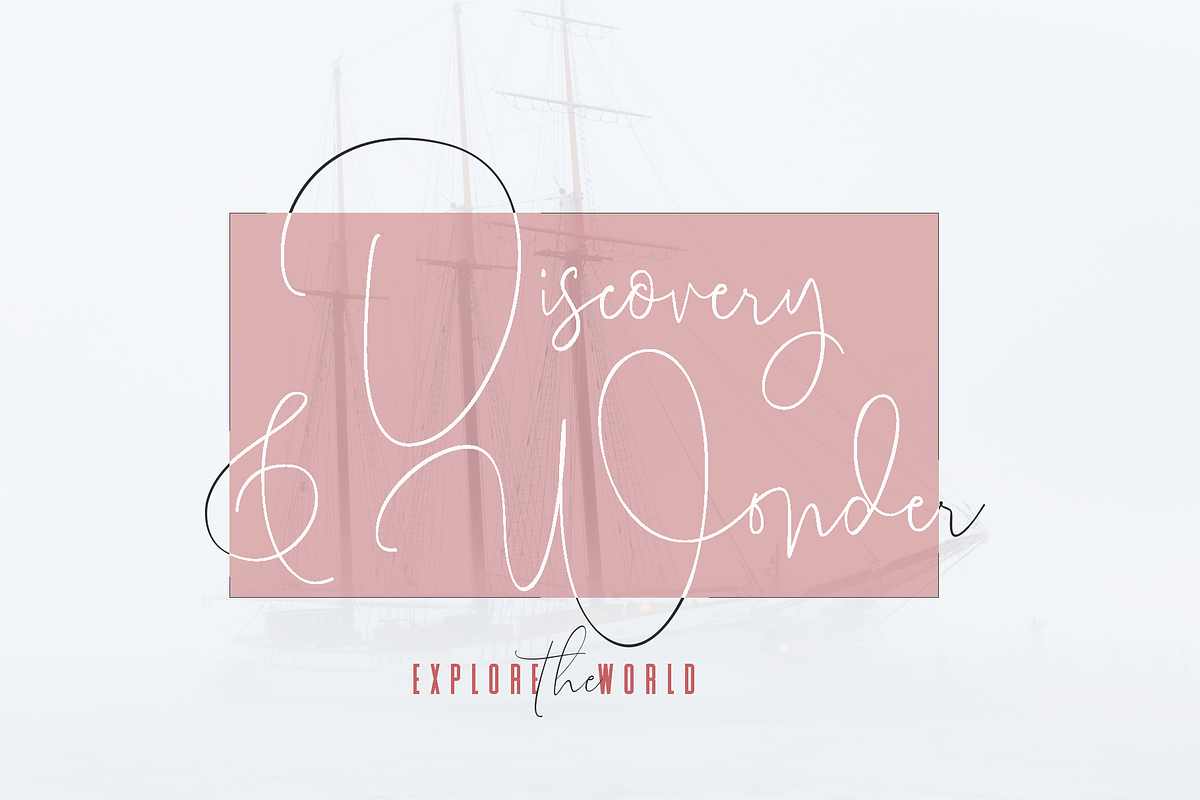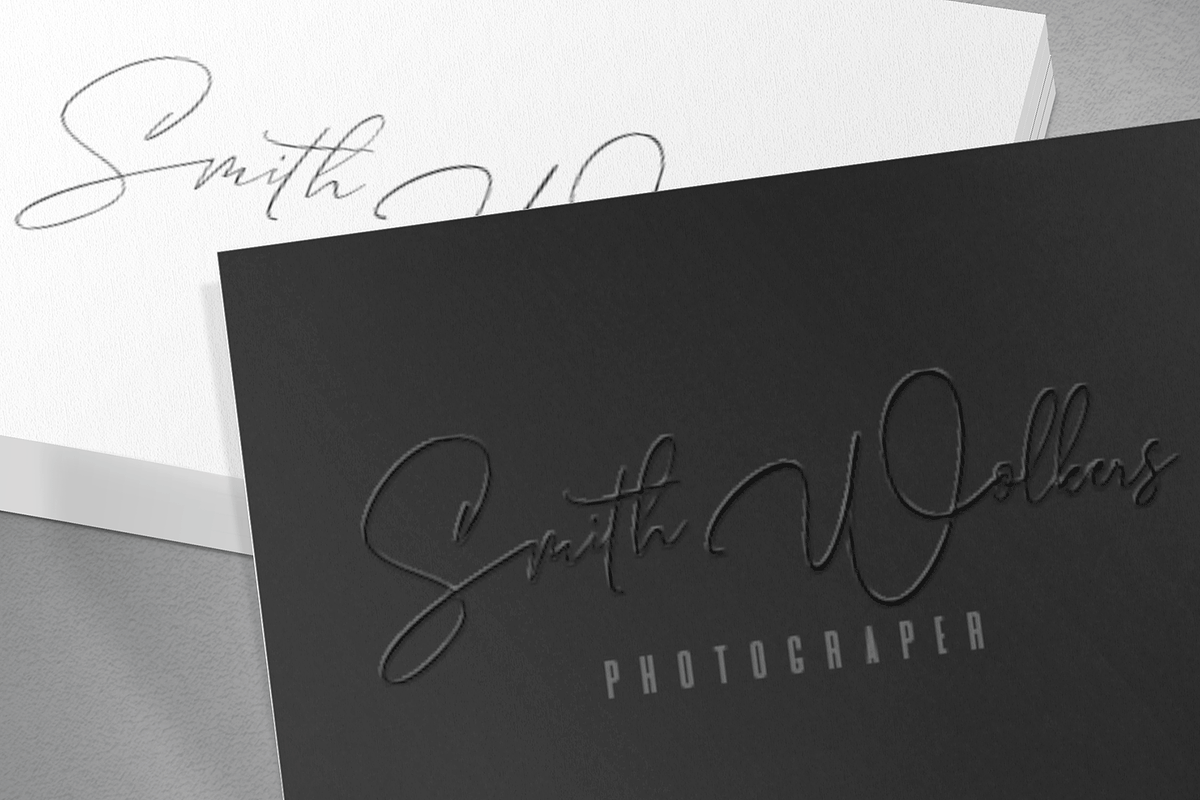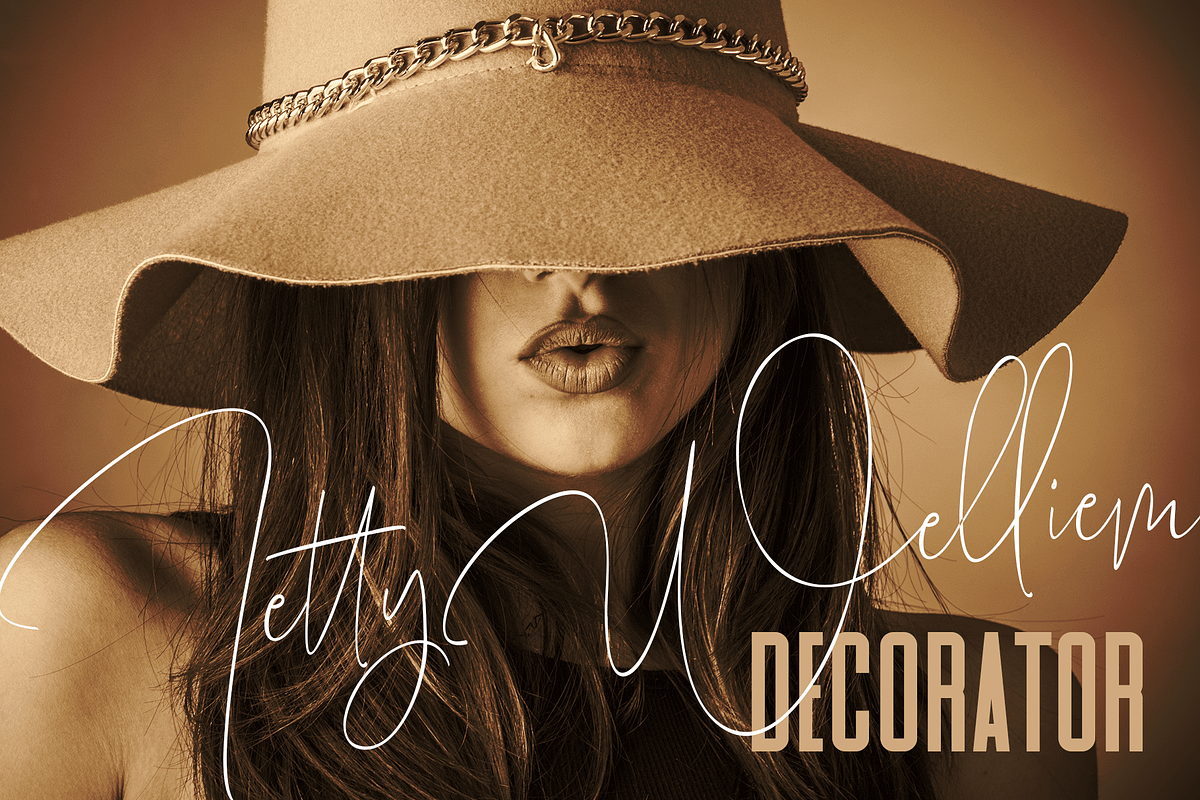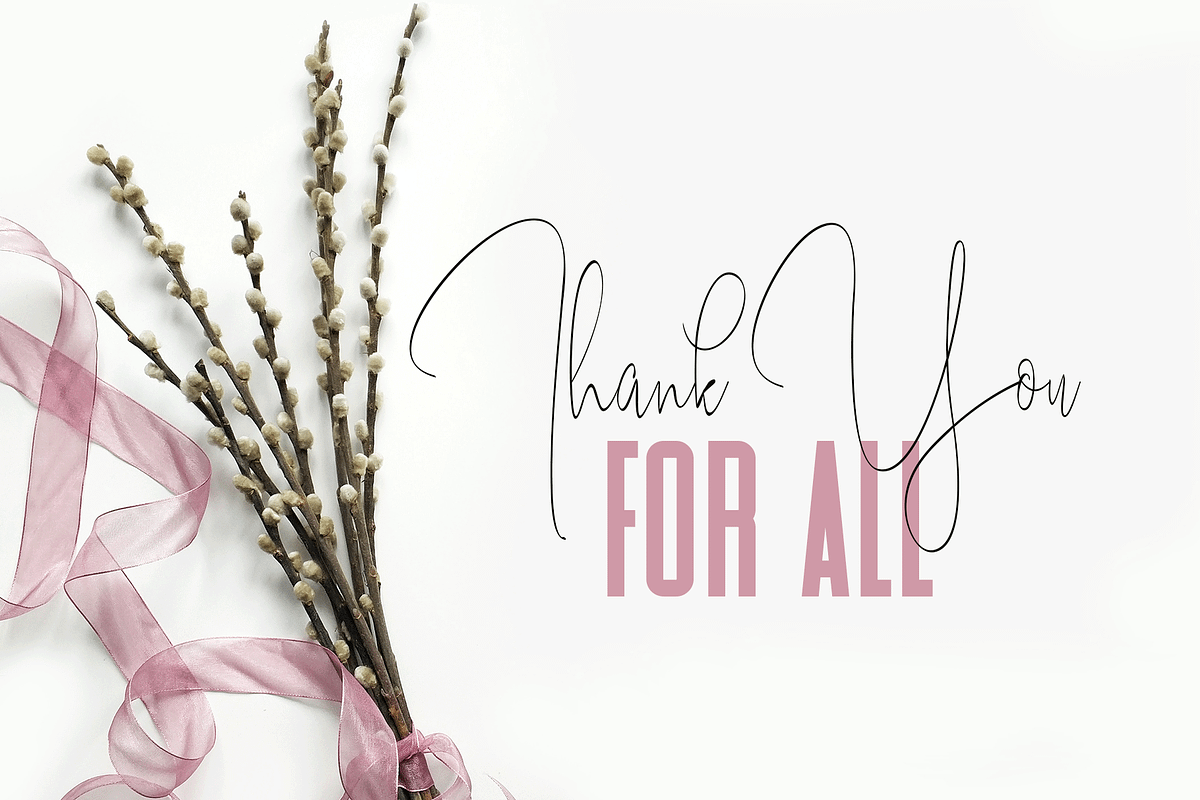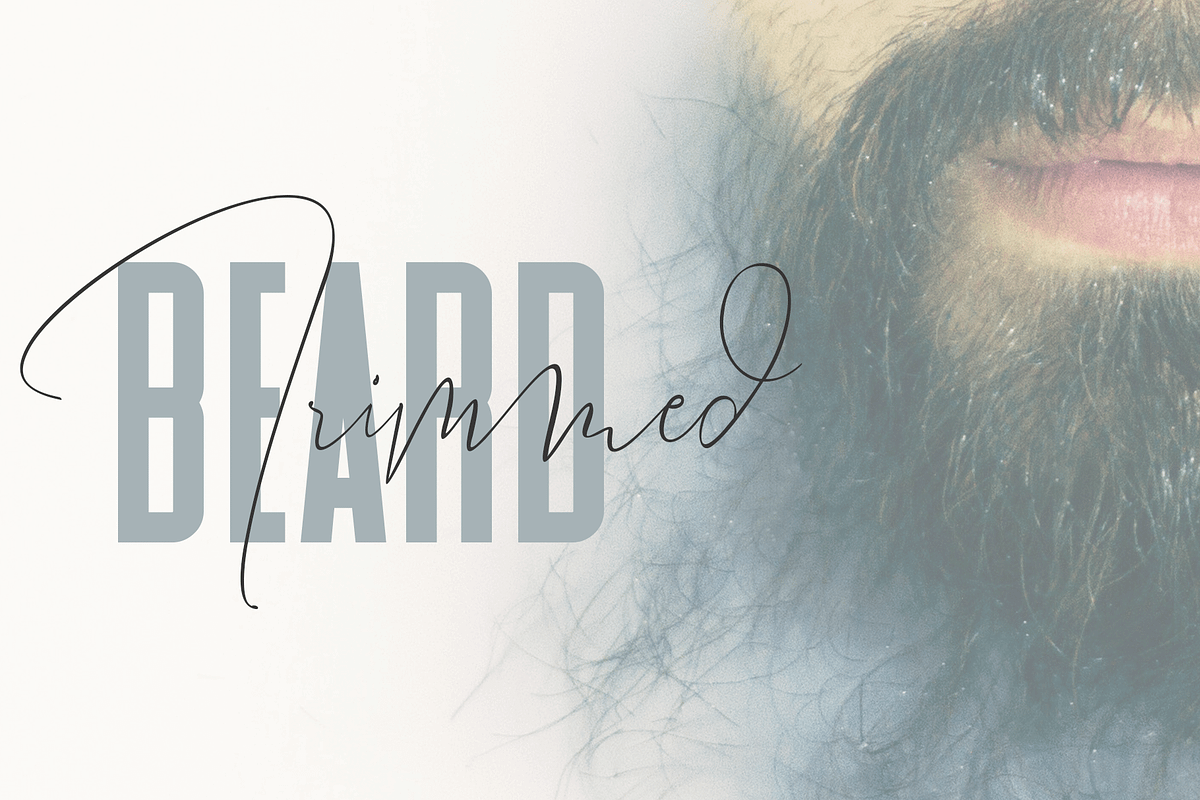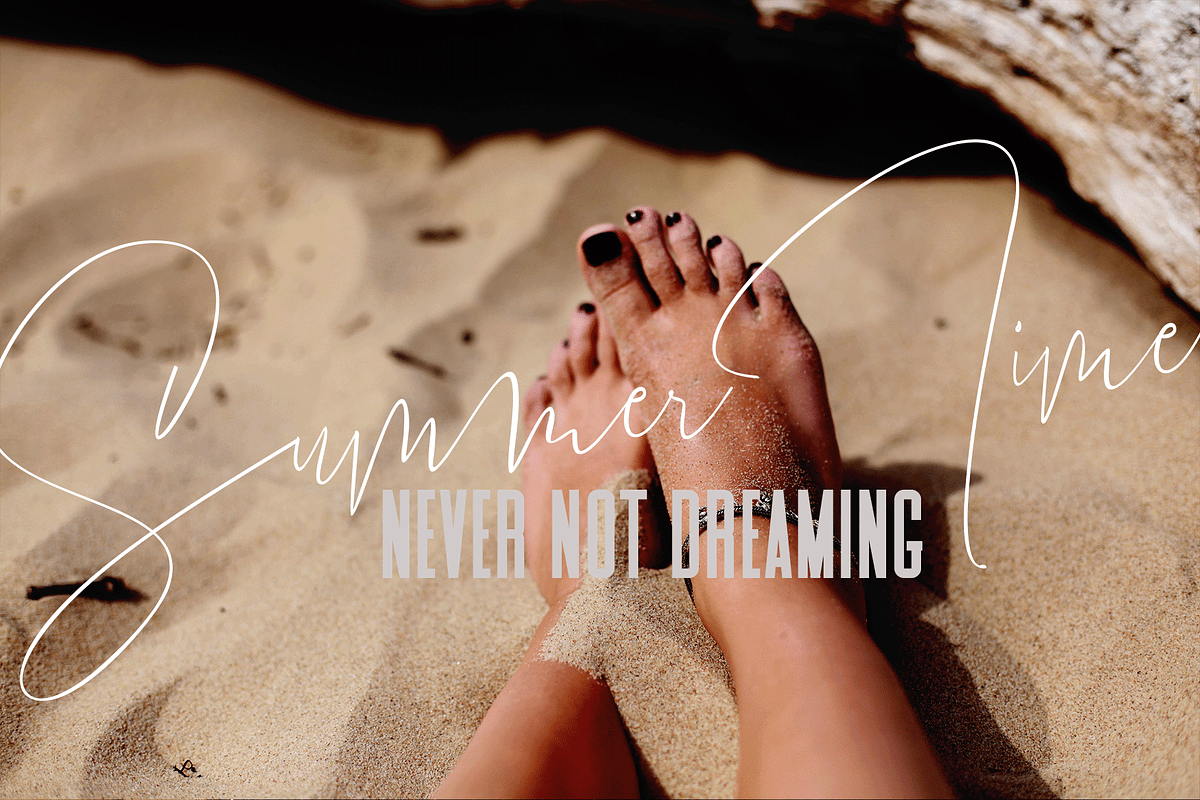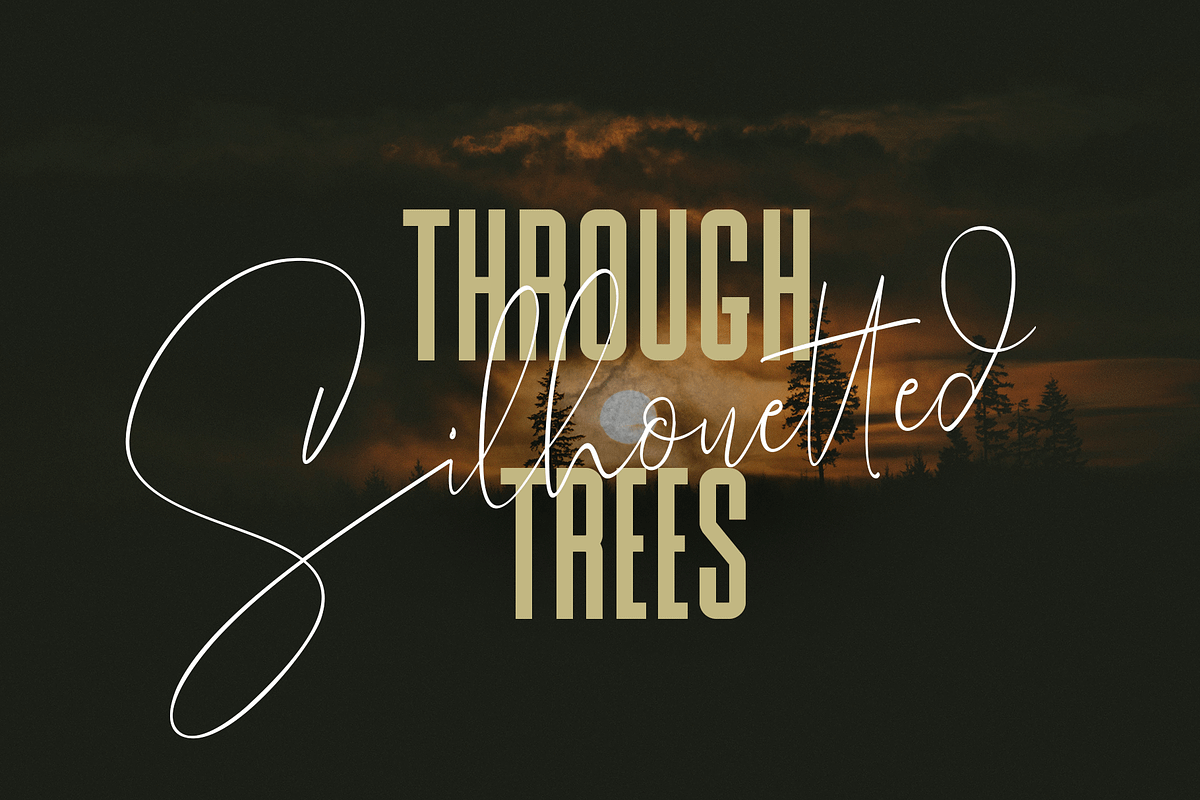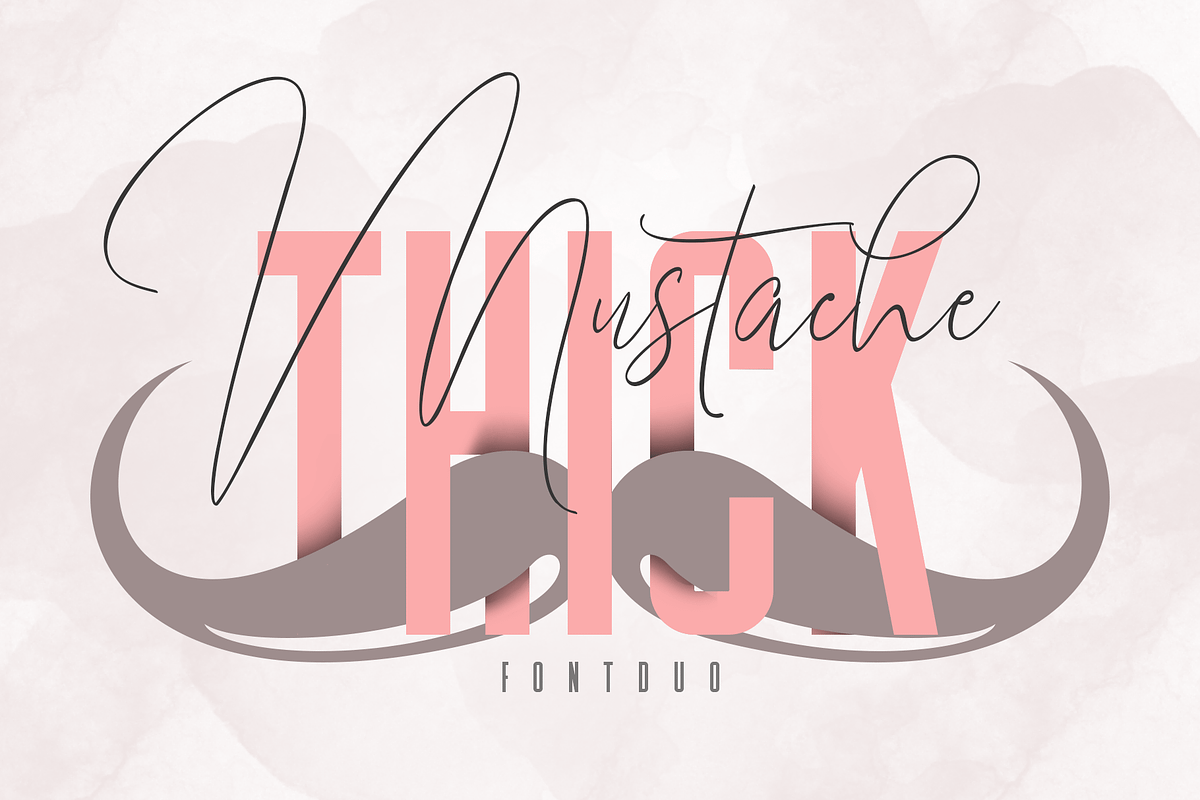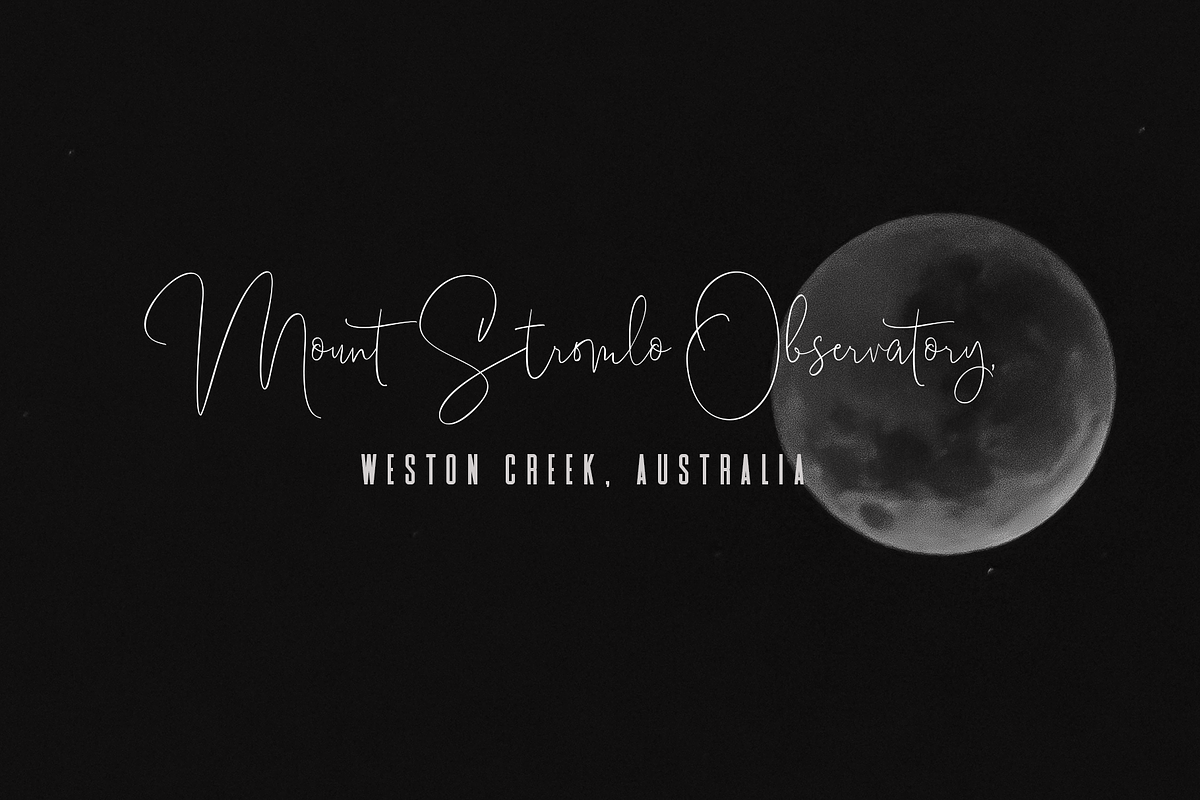
Mustache and Thick Sans
Mustache a work that is purely a result of handwriting, has a natural characteristic. this is perfect for invitations, signatures, blogs, social media, business cards, product brands.
Mustache has Stylistic standard, Stylistic Alternates and ligatures. and includes uppercase and lowercase letters, numbers and punctuation marks.
Thick Sans is has its own characteristics, this font is only uppercase and lowercase characters